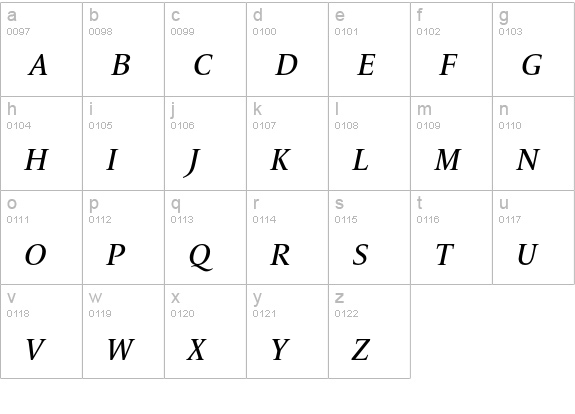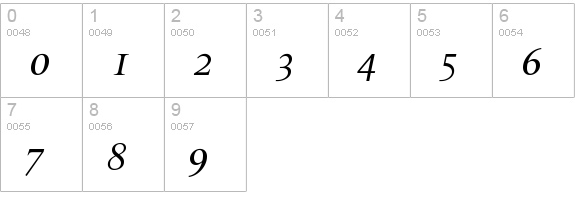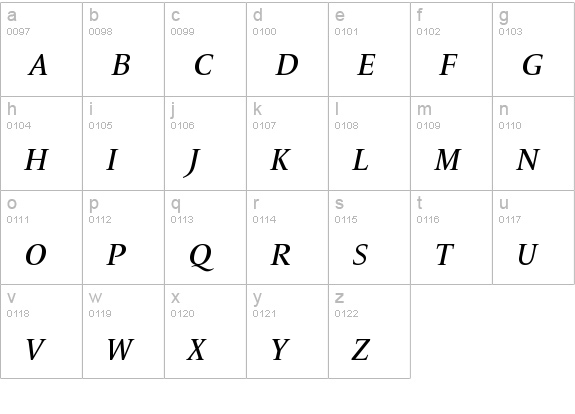
LeMondeLivre Italic Small Caps is a distinctive, italic variant in the LeMondeLivre typeface family \xE2\x80\x94 well suited to design and typography projects.
LeMondeLivre Italic Small Caps is a stunning font that effortlessly combines elegance with modernity. Its delicate curves and subtle slant create a sense of sophistication and grace, making it the perfect choice for projects that require a touch of refinement. This font features small caps, adding a unique and stylish element to your designs. Whether you're designing a logo, a magazine layout, or a wedding invitation, LeMondeLivre Italic Small Caps will add a touch of class and professionalism. One of the best things about LeMondeLivre Italic Small Caps is that it is freely available to download at FontsMarket.com. This means that you can easily access this beautiful font without any cost, making it a fantastic option for both personal and commercial projects. With its timeless appeal and versatile nature, LeMondeLivre Italic Small Caps is a font that will never go out of style. Its clean lines and balanced proportions make it easy to read and aesthetically pleasing, ensuring that your message will be delivered with clarity and impact. Whether you're designing for print or digital media, LeMondeLivre Italic Small Caps is a font that will elevate your work to new heights. Its attention to detail and refined aesthetics will captivate your audience and leave a lasting impression. Download LeMondeLivre Italic Small Caps for free at FontsMarket.com and unlock the potential of this exceptional font. Embrace elegance and sophistication in your designs with this timeless typeface that is sure to make a statement.